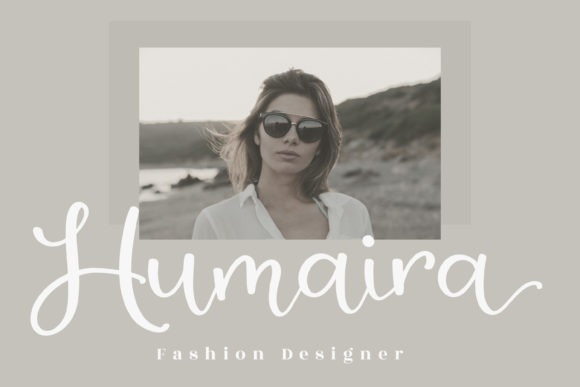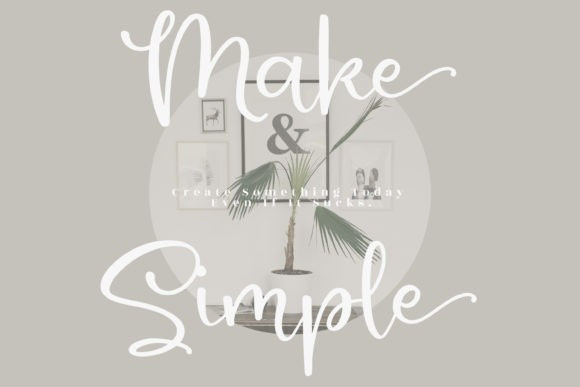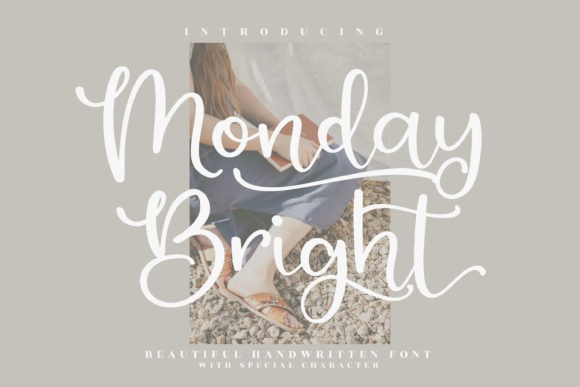
Monday Bright Font
Monday Bright Font is a thin lettered and graceful script font. Fall for its ravishing style and use it to create gorgeous designs! This font is PUA encoded which means you can access all glyphs and swashes with ease!